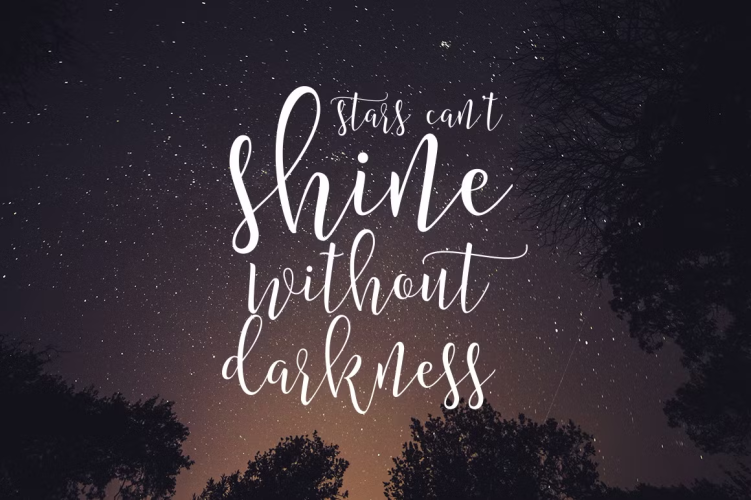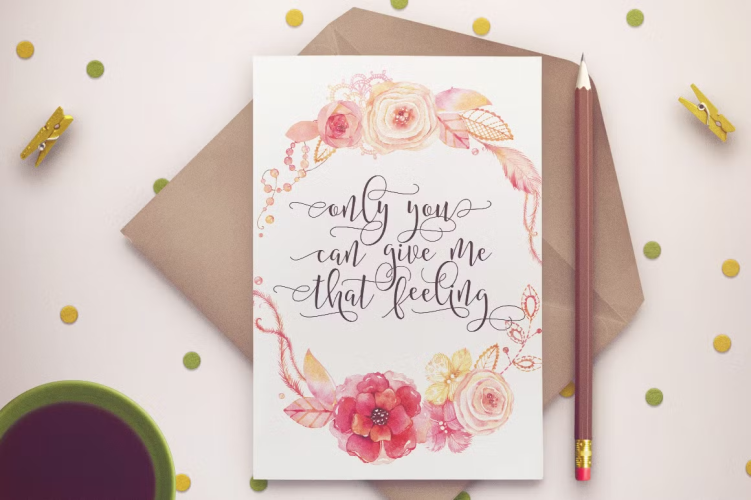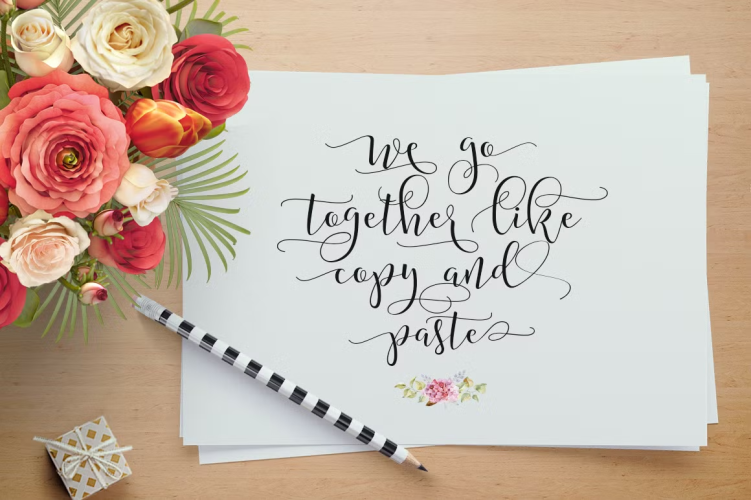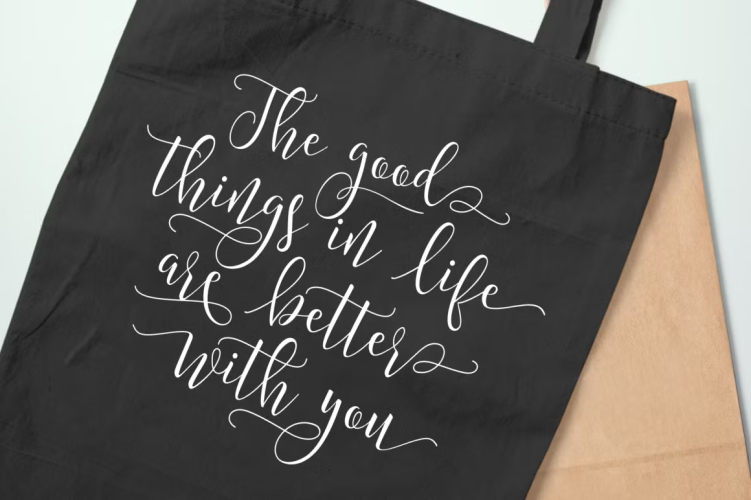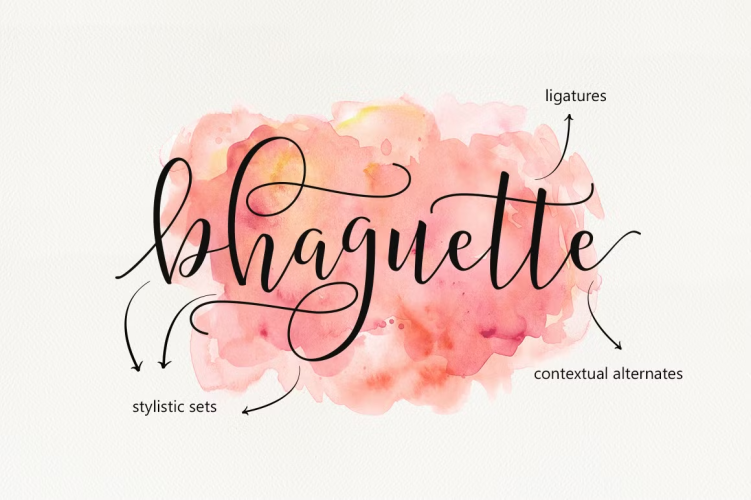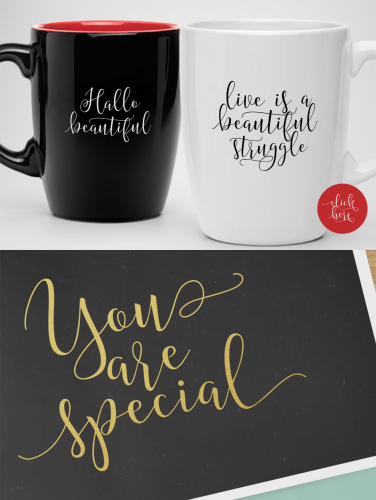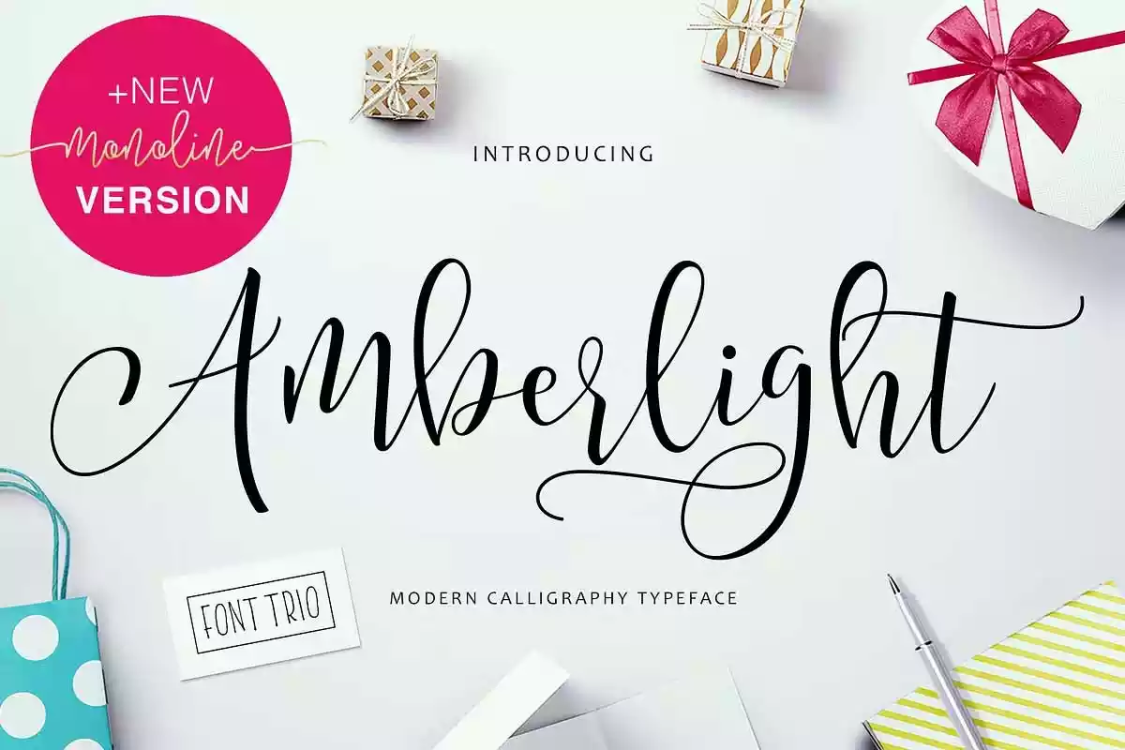
Amberlight Font
Introducing Amberlight Script—a new, fresh, and modern script with a sweet calligraphy style, decorative characters, and a dancing baseline! It is so beautiful on invitations, branding materials, business cards, quotes, posters, and more!
Amberlight comes with 335 and 120 New Stylistic Sets and Swash Characters. The alternative characters were divided into several OpenType features, such as Stylistic Sets, Contextual Alternates, and Ligature. These features can be accessed using OpenType-savvy programs such as Adobe Illustrator and Adobe InDesign.
Where Amberlight Font works best
Amberlight Font brings a personal, handwritten warmth to invitations, menus and place cards.
Craft brands — coffee, cosmetics, bakery — use scripts like Amberlight Font for signature-style logos and labels.
Pair Amberlight Font with a plain sans for quotes, stories and Pinterest pins that feel handmade.
What is Amberlight Font good for?
Amberlight Font is a Script And Handwritten typeface tagged Branding, Calligraphy, Modern, Poster. It works well for headlines, logos, posters, social media graphics and branding projects that need a distinctive script and handwritten look.